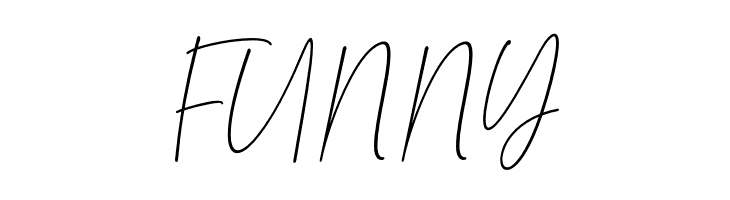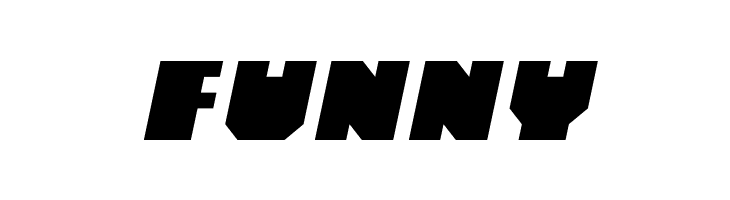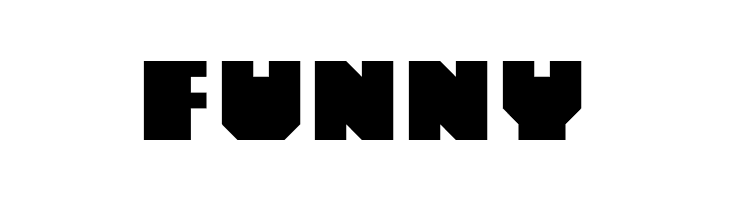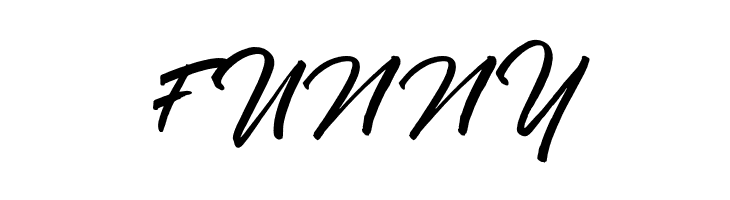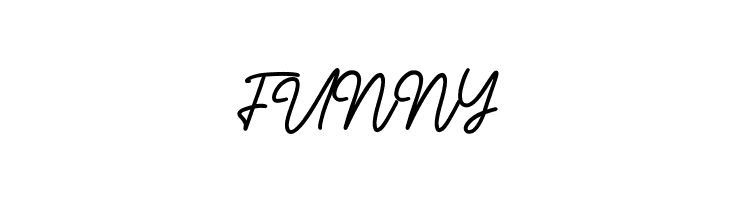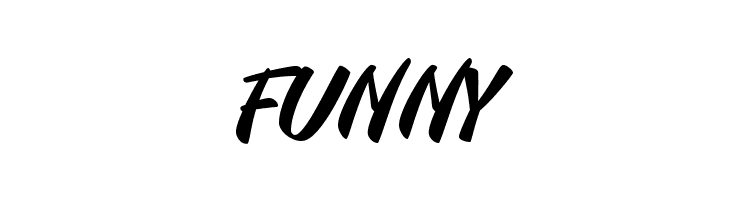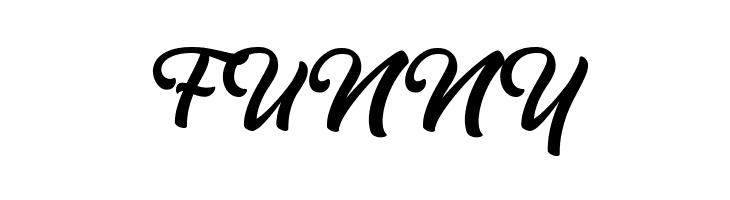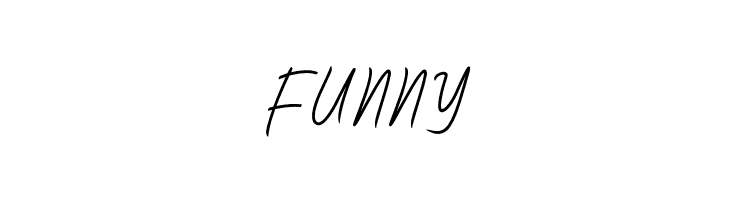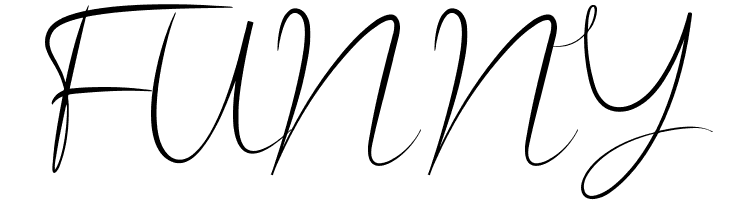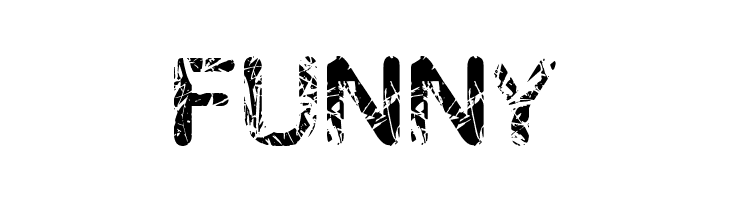
A fluid and elegant handwritten font with connected letterforms.
A bold, geometric font with sharp angles and a blocky design.
A bold, angular, and italicized font with sharp geometric shapes.
A bold, hand-drawn font with an energetic and playful style.
A bold, energetic script font with a handwritten style.
A bold, distressed font with a grungy, textured appearance.
A bold, playful handwritten font with smooth curves and rounded edges.
A bold, brush-style font with dynamic, slanted strokes and artistic flair.
A bold, distressed font with a fragmented, shattered appearance.
A fluid and elegant handwritten font with connected strokes and a dynamic slant.
An elegant script font with flowing, ornate cursive letters.
A delicate, handwritten font with elegant, flowing strokes and a sophisticated style.
An elegant and sophisticated cursive script font with flowing, artistic curves.
A flowing, cursive font with elegant, sweeping lines and artistic flair.
A bold, cursive font with smooth, flowing lines and elegant curves.
A high-contrast, geometric serif font with a modern yet classic appeal.
A high-contrast serif font with elegant, sharp serifs and a modern touch.
A decorative and artistic font with intricate flourishes and high contrast.
A bold, dynamic script font with elegant, flowing letterforms.
A bold, slanted script font with high contrast and fluid connections.
An elegant and flowing script font with graceful, cursive letterforms.
A cursive, handwritten font with elegant, flowing strokes and dynamic contrast.
A bold, playful script font with dynamic, flowing characters.
A bold, flowing script font with elegant, interconnected characters.
A bold, playful script font with interconnected, fluid letters.
A bold, cursive font with a playful and energetic style.
A dynamic and expressive cursive script font with flowing strokes.
A dynamic and expressive script font with fluid, flowing letterforms.
A bold, expressive handwritten font with dynamic strokes.
A playful handwritten font with a casual and whimsical style.
A bold, expressive script font with a handwritten, cursive style.
A bold, brush-style font with dynamic strokes and a graffiti-like appearance.
A bold, expressive script font with flowing, cursive letterforms.
A playful, hand-drawn font with bold, rounded characters and a whimsical style.
A playful, hand-drawn font with rounded, bold strokes and a whimsical style.